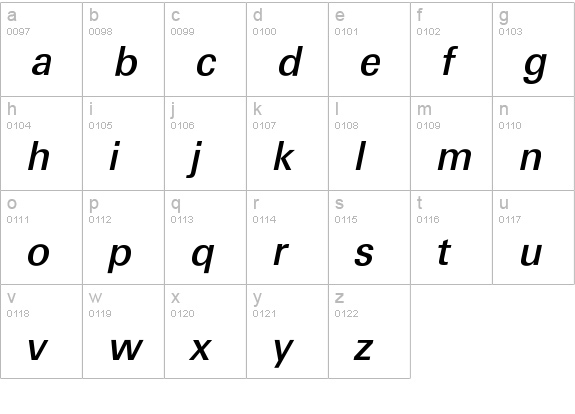
Ultimate-MediumIta Font Details
Ultimate-MediumIta font is a sleek and modern typeface that exudes elegance and sophistication. Its clean lines and balanced proportions make it perfect for a wide range of design projects, from branding and advertising to web design and print materials. With its medium weight and italic style, Ultimate-MediumIta font adds a touch of flair and creativity to any text. Whether you're looking to create eye-catching headlines or stylish body copy, this font delivers in both readability and visual impact. One of the best features of Ultimate-MediumIta font is that it is available for free download at FontsMarket.com. This means that you can easily access and use this beautiful font without any cost or restrictions. It's a great opportunity to enhance your creative projects without breaking the bank. The versatility of Ultimate-MediumIta font is also worth mentioning. It can be used in various design contexts, from corporate presentations to personal projects. Its timeless design ensures that it will remain relevant and stylish for years to come. If you're looking for a font that combines modernity with elegance, Ultimate-MediumIta font is the perfect choice. Its free availability at FontsMarket.com makes it even more appealing, allowing you to enhance your designs without any financial burden. Download this font today and elevate your creative endeavors to new heights.